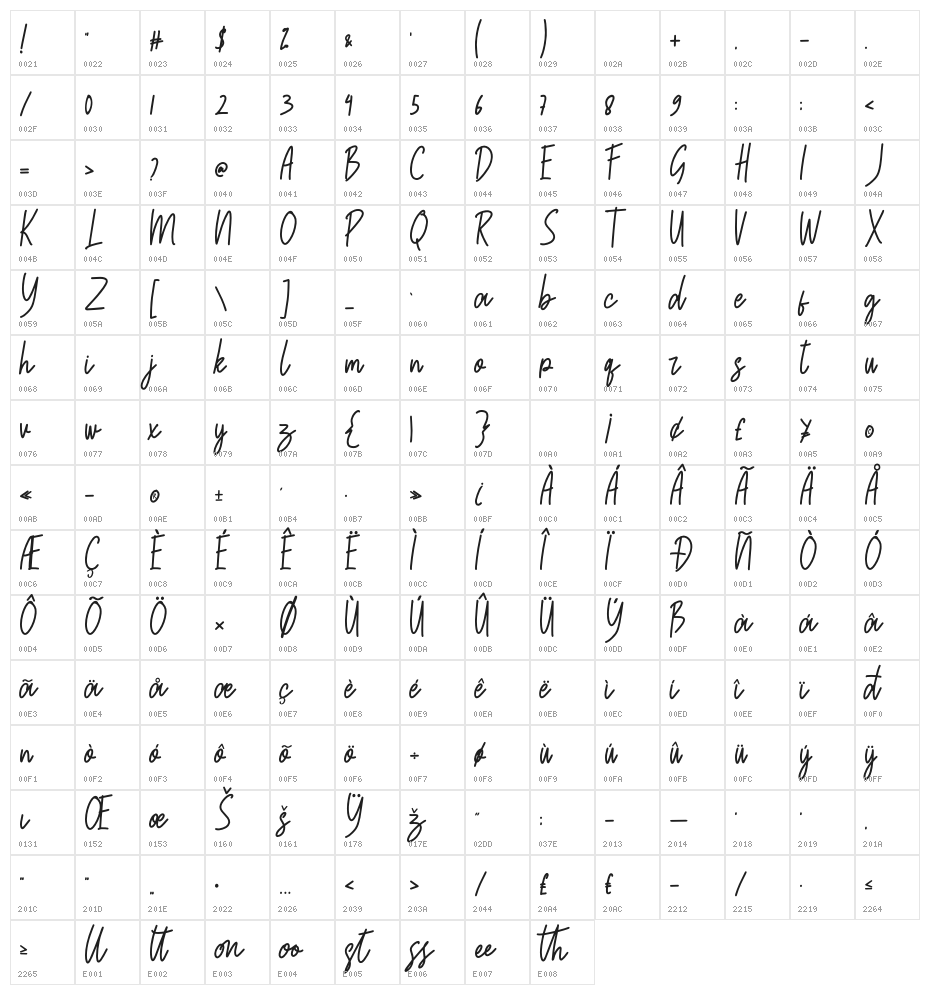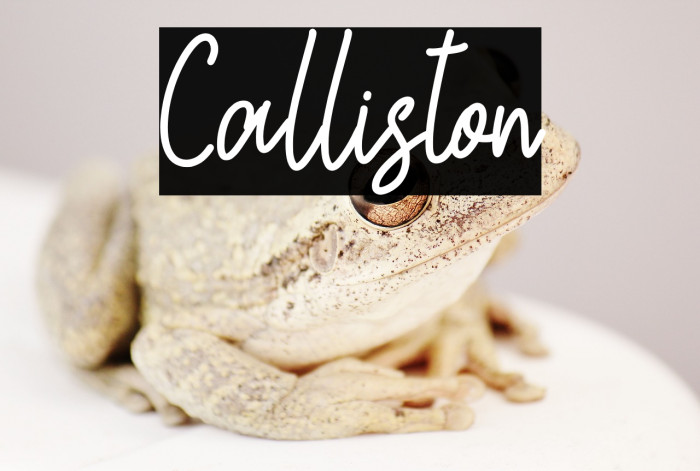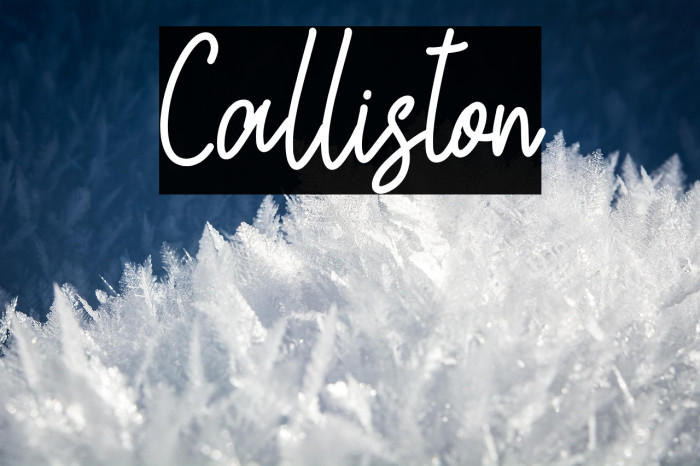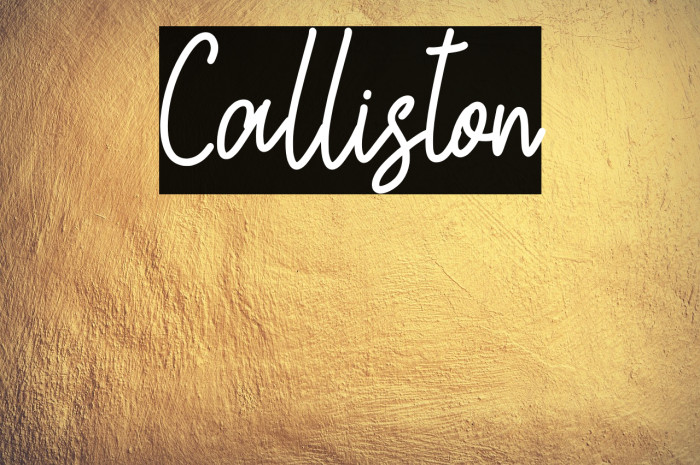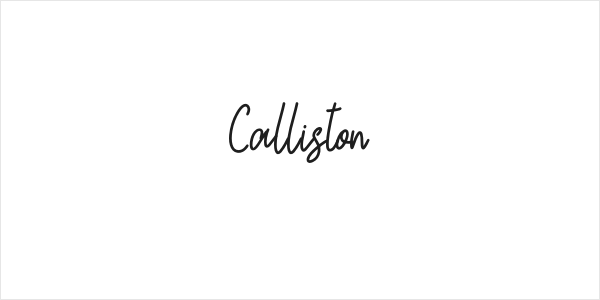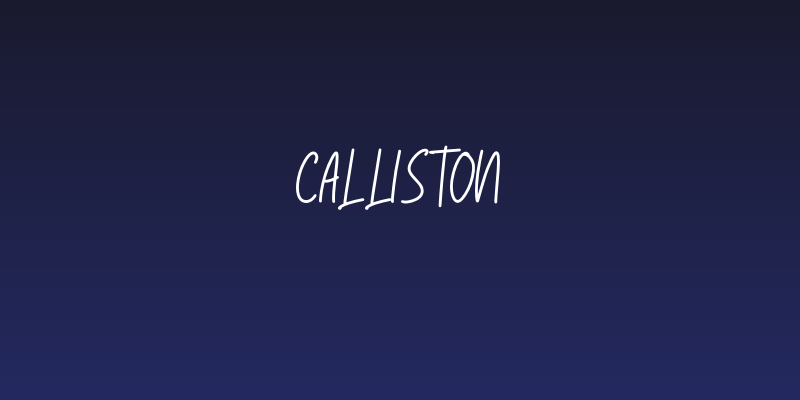
Calliston Font
Calliston Description
This font features a dynamic and fluid handwritten style, characterized by its smooth, flowing lines and slightly irregular letterforms that give it a personal and informal touch. The uppercase letters are tall and narrow, with a slight slant that adds to the casual feel. The lowercase letters maintain a consistent style, with some letters featuring loops and curves that enhance the handwritten aesthetic. The numbers are clear and legible, matching the overall style of the alphabet. Special characters are well-integrated, maintaining the same fluidity and style as the letters and numbers. This font exudes a sense of creativity and spontaneity, making it ideal for projects that require a personal or artistic touch.
| Overall Style | Casual, Artistic |
| Use Case | Logos, Invitations, Creative projects |
| Proposed Projects | Ideal for greeting cards, personal branding, creative projects, and informal invitations. |